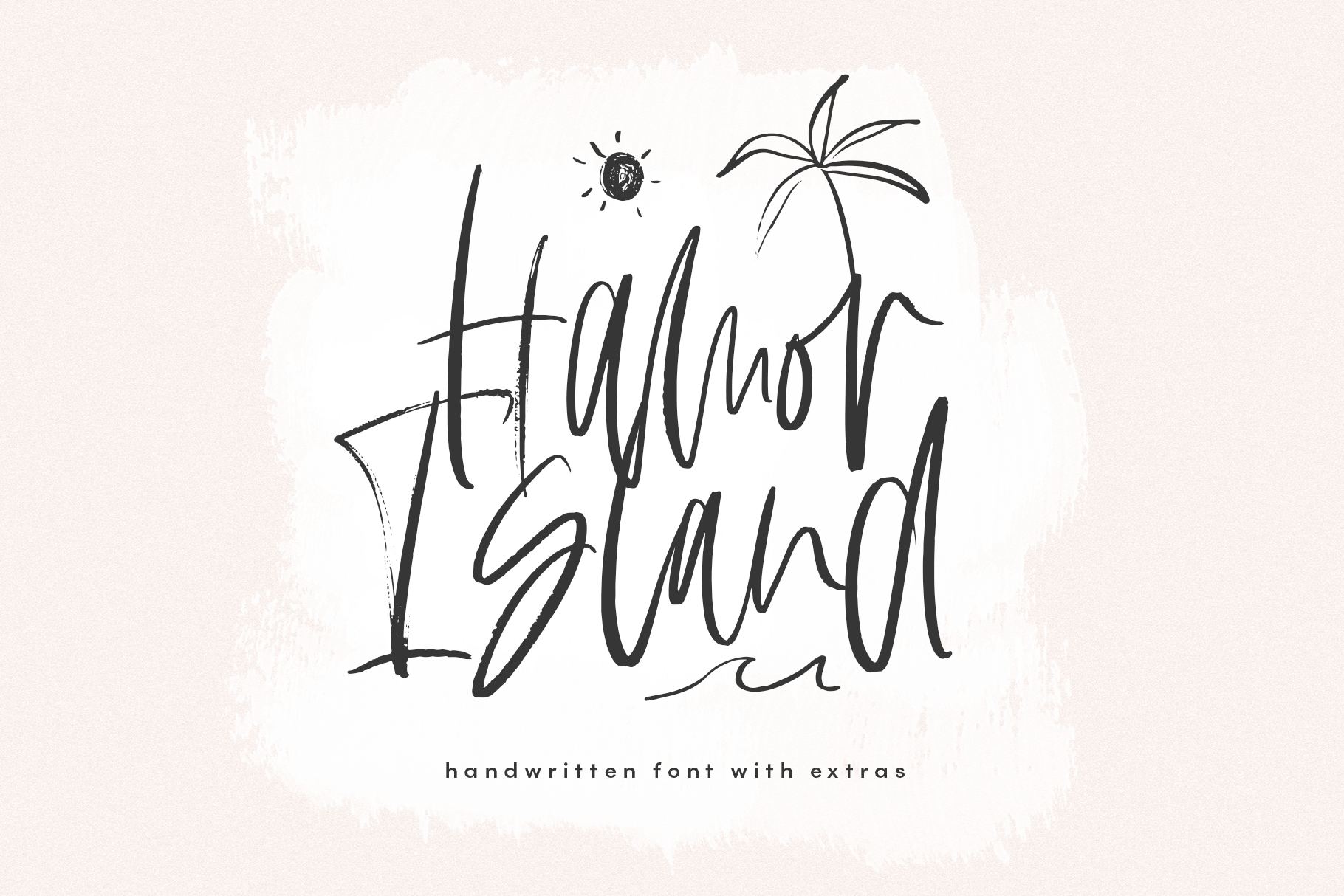
Hamor Island is a carefree, handwritten script font. This font has a fun bohemian vibe. A set of complimentary doodles are included as a font file (use capital letters A-Z).
This font is perfect for modern projects, headings, blogs, logos, brandings, invitations and more!